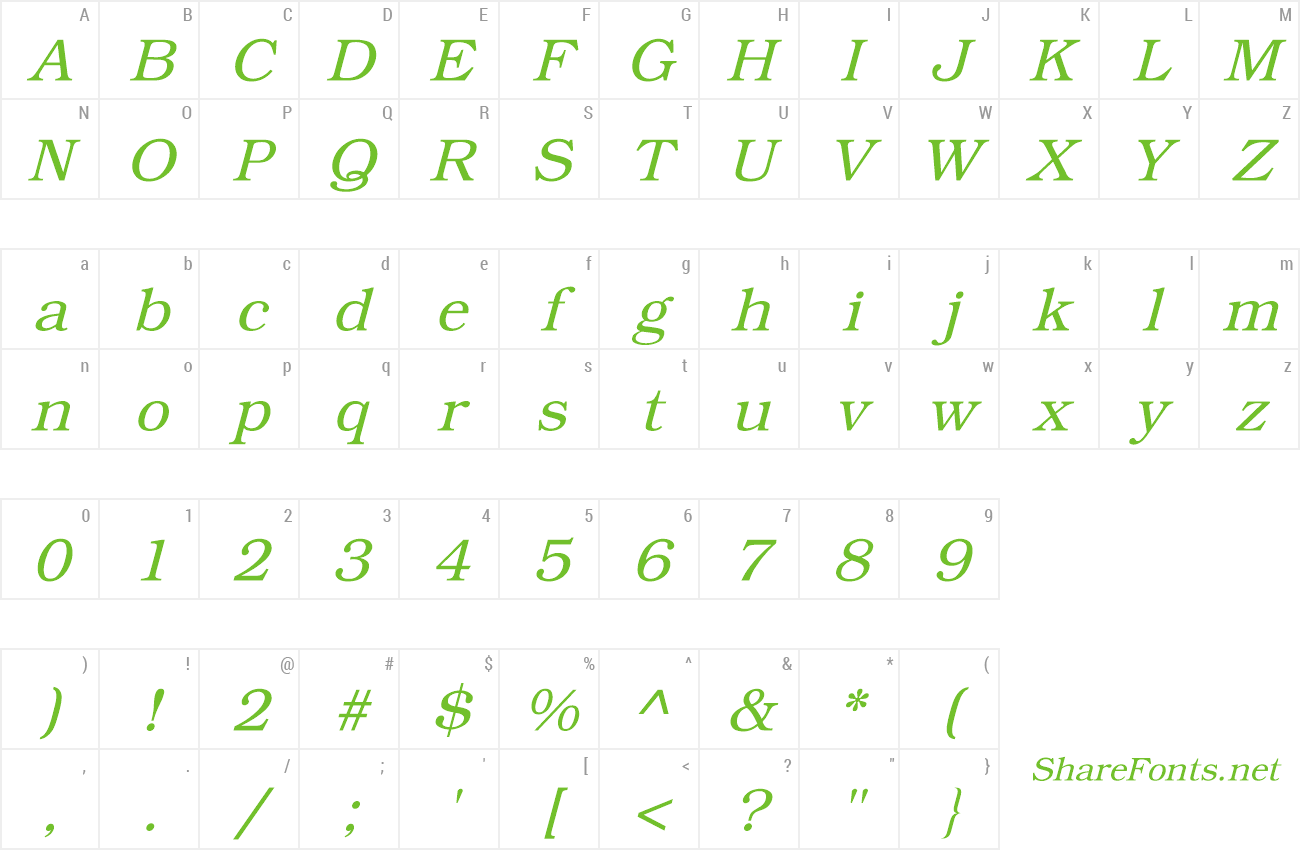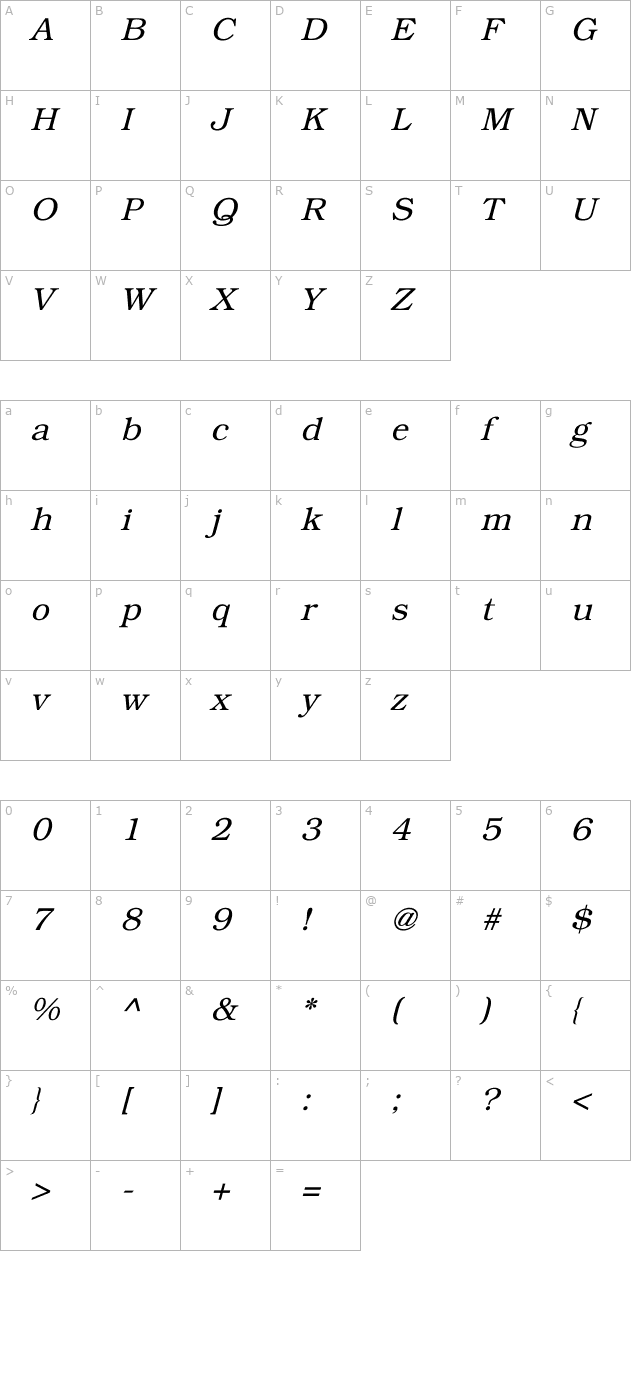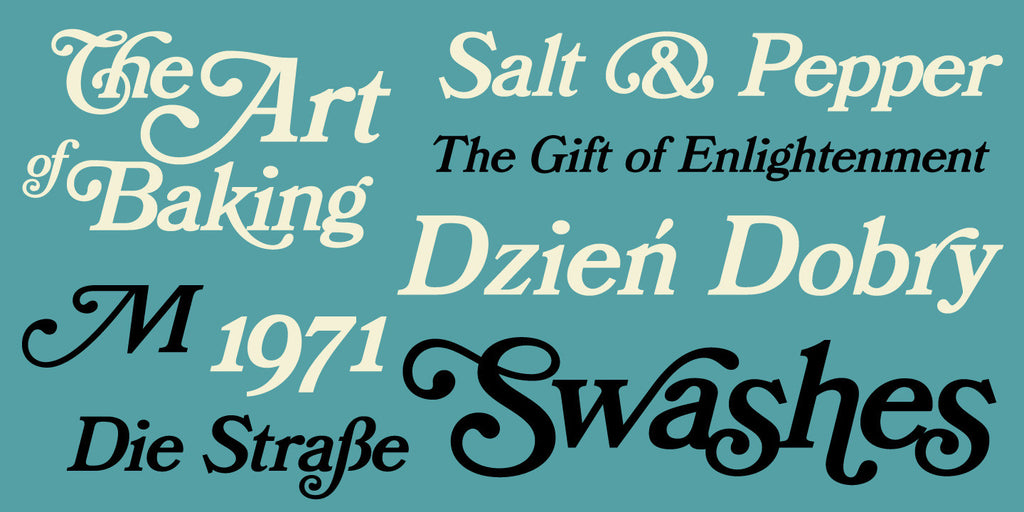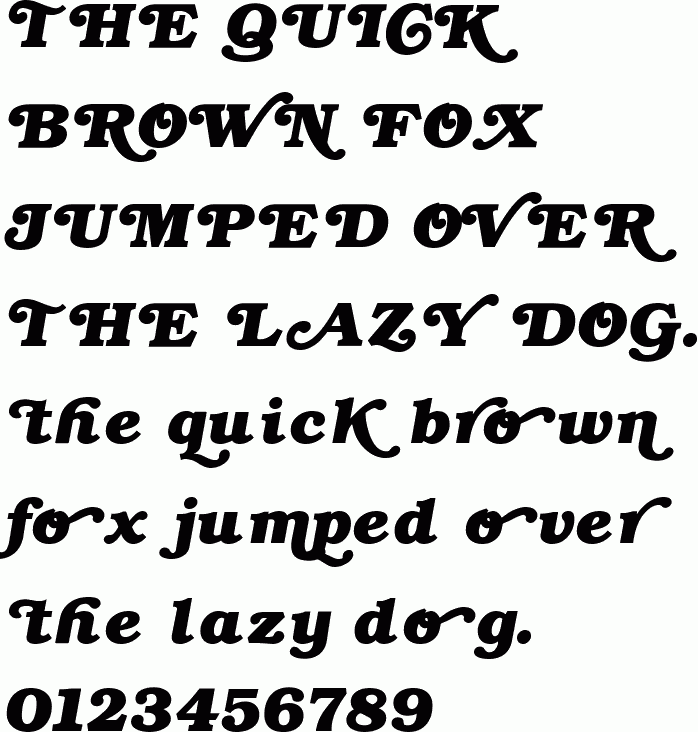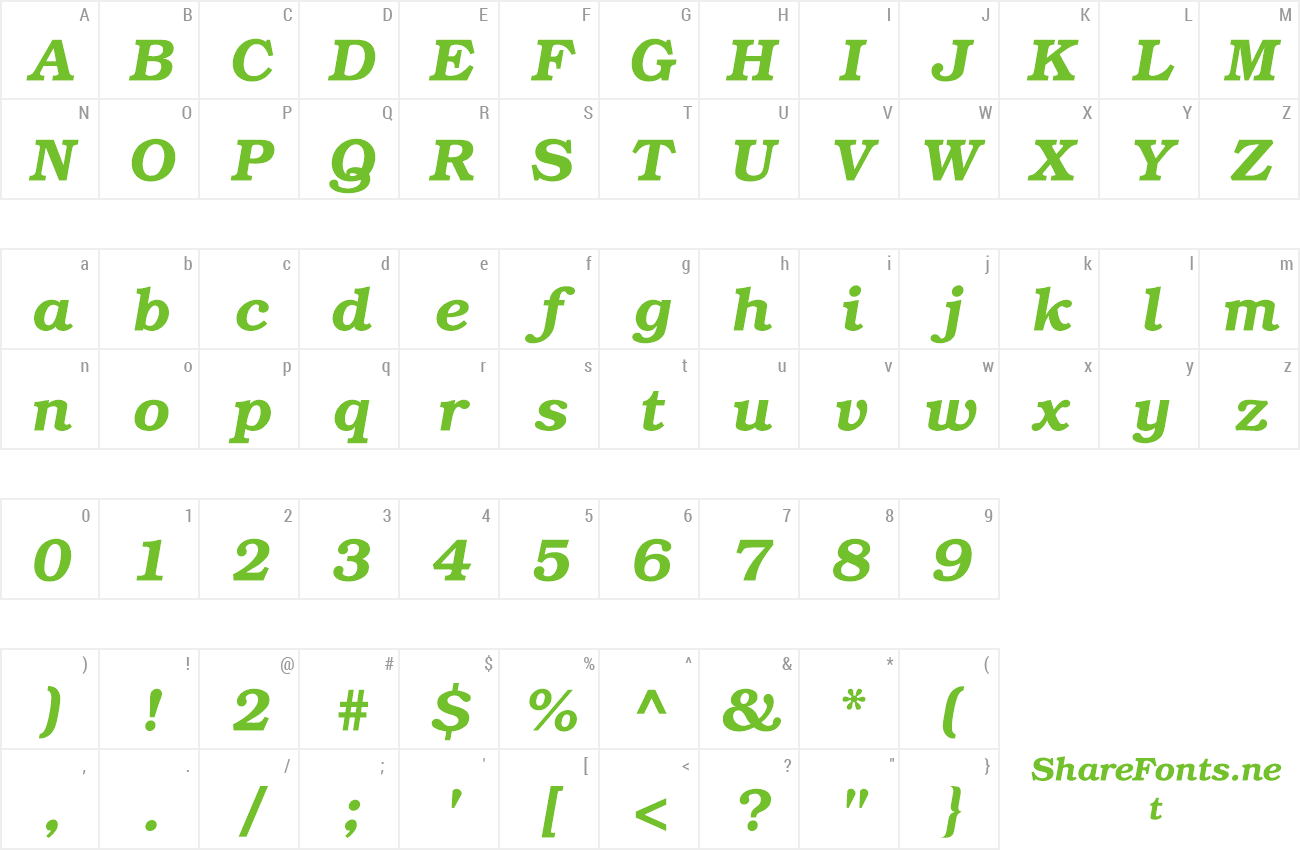
Bookman Italic Font - This font features a classic serif style with a slight. Bookmanjf is the classic “bookman swash” font that has been beloved by designers for decades. Elegant serif font with a classic italic style. It’s a clarendon style font that evokes design.
This font features a classic serif style with a slight. It’s a clarendon style font that evokes design. Elegant serif font with a classic italic style. Bookmanjf is the classic “bookman swash” font that has been beloved by designers for decades.
Bookman Bold Italic Swash Lettering fonts, Lettering, Typeography
Elegant serif font with a classic italic style. It’s a clarendon style font that evokes design. Bookmanjf is the classic “bookman swash” font that has been beloved by designers for decades. This font features a classic serif style with a slight.
Bookmanjf is the classic “bookman swash” font that has been beloved by designers for decades. This font features a classic serif style with a slight. It’s a clarendon style font that evokes design. Elegant serif font with a classic italic style.
Bookman Swash Italic. This font dominated my very early childhood
Bookmanjf is the classic “bookman swash” font that has been beloved by designers for decades. This font features a classic serif style with a slight. Elegant serif font with a classic italic style. It’s a clarendon style font that evokes design.
Elegant serif font with a classic italic style. Bookmanjf is the classic “bookman swash” font that has been beloved by designers for decades. This font features a classic serif style with a slight. It’s a clarendon style font that evokes design.
ITC Bookman DAYLIGHT FONTS
Elegant serif font with a classic italic style. It’s a clarendon style font that evokes design. This font features a classic serif style with a slight. Bookmanjf is the classic “bookman swash” font that has been beloved by designers for decades.
Bookman Italic Jukebox Fonts
This font features a classic serif style with a slight. It’s a clarendon style font that evokes design. Bookmanjf is the classic “bookman swash” font that has been beloved by designers for decades. Elegant serif font with a classic italic style.
Elegant serif font with a classic italic style. Bookmanjf is the classic “bookman swash” font that has been beloved by designers for decades. It’s a clarendon style font that evokes design. This font features a classic serif style with a slight.
It’s a clarendon style font that evokes design. Elegant serif font with a classic italic style. Bookmanjf is the classic “bookman swash” font that has been beloved by designers for decades. This font features a classic serif style with a slight.
This Font Features A Classic Serif Style With A Slight.
Bookmanjf is the classic “bookman swash” font that has been beloved by designers for decades. It’s a clarendon style font that evokes design. Elegant serif font with a classic italic style.